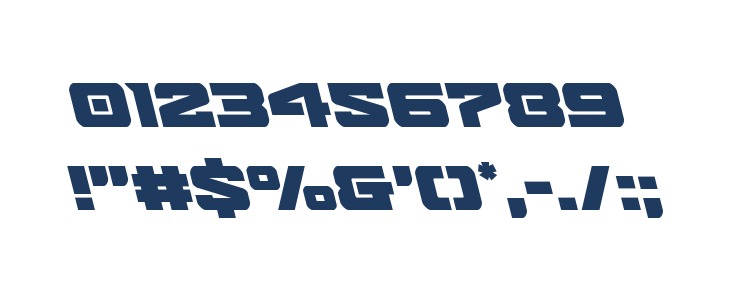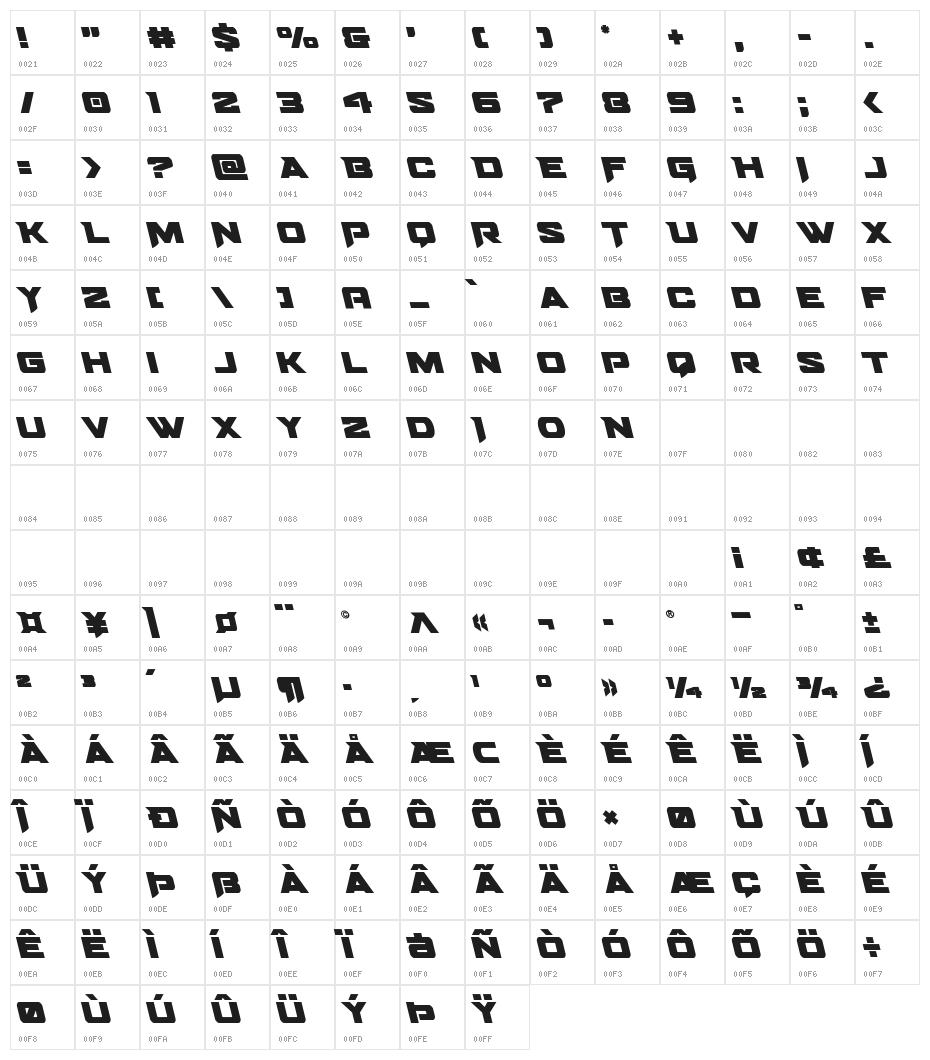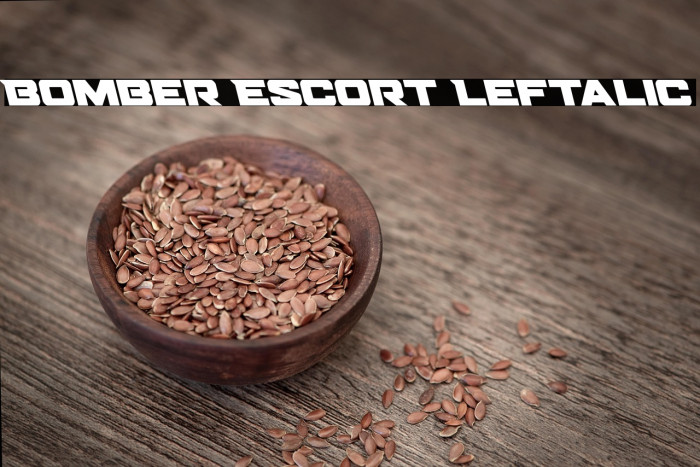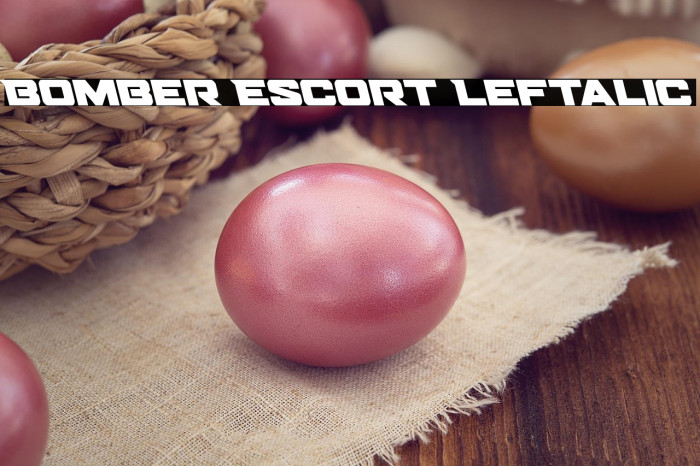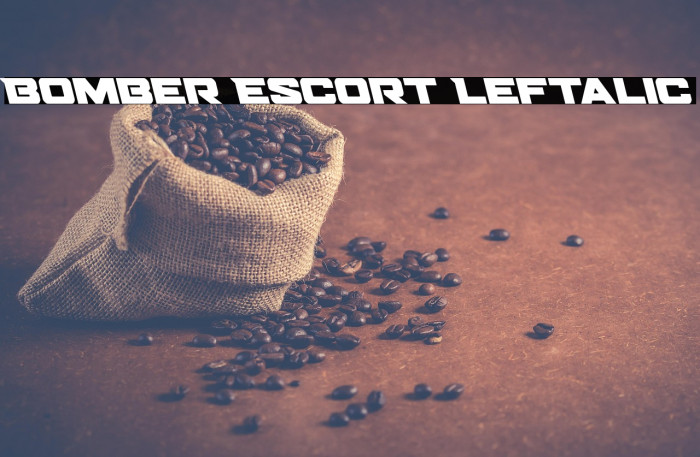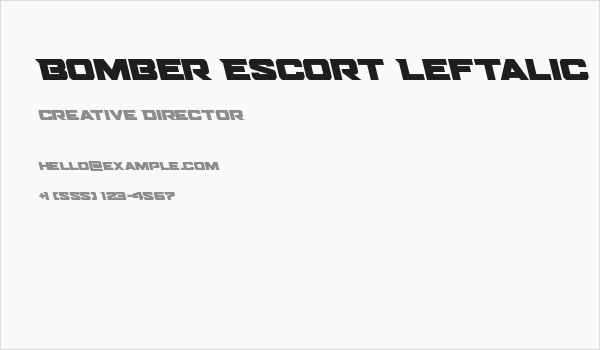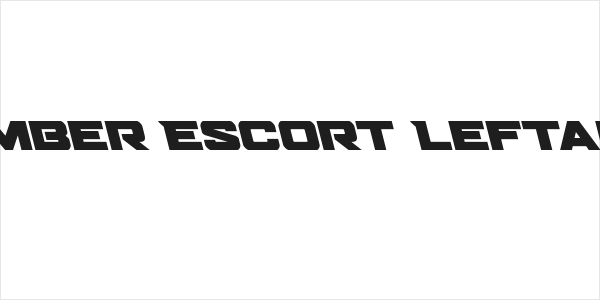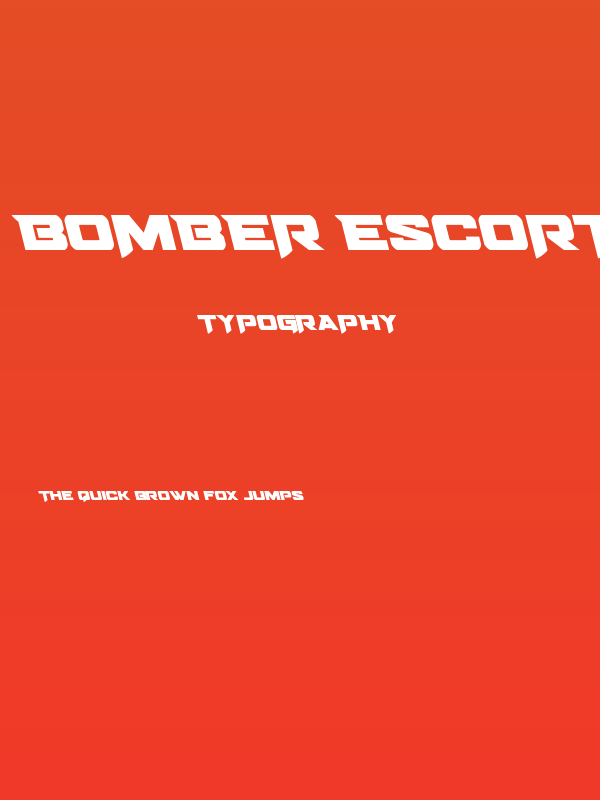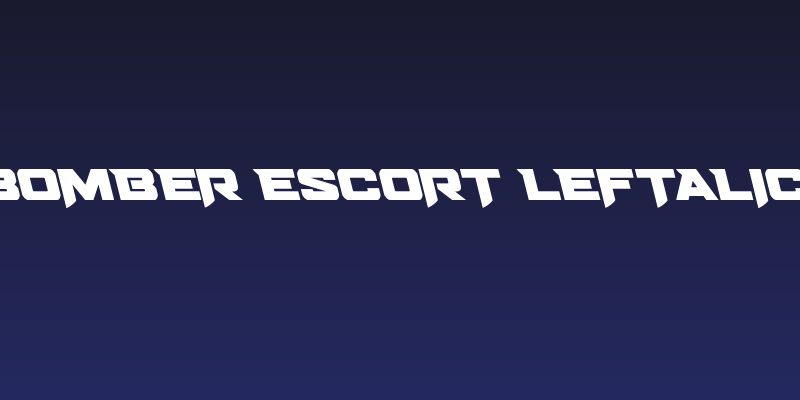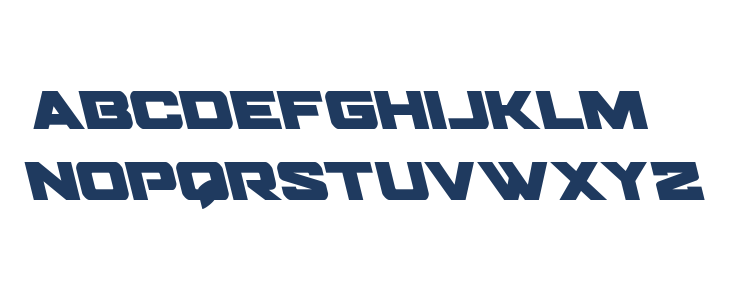
Bomber Escort Leftalic Font
Bomber Escort Leftalic Description
This font features a bold, angular design with a strong, impactful presence. The characters are sharply defined with a distinct slant, giving them a dynamic and aggressive look. The uppercase letters are particularly striking, with each character exhibiting a unique geometric flair. The numbers and special characters maintain this bold style, ensuring consistency across all glyphs. The font's design is reminiscent of military or aviation themes, making it suitable for projects that require a strong, authoritative aesthetic.